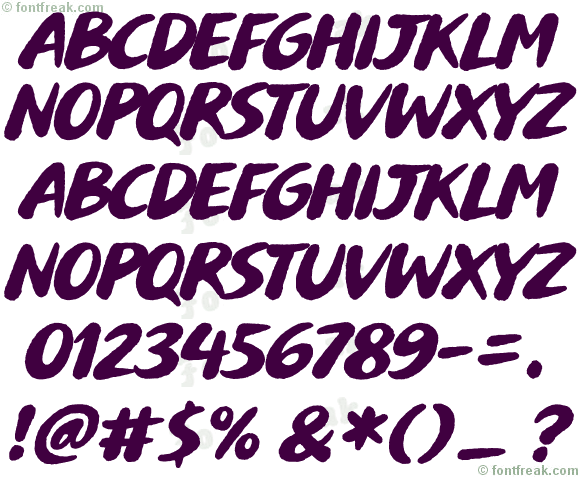
Buvard
About Buvard
Buvard is a captivating display font designed by Youssef Habchi, showcasing a unique blend of artistic flair and versatility. As a script font, it embodies a handwritten quality that is both playful and sophisticated. The strokes are bold and expressive, with a variable weight that adds a dynamic feel to each letter. The slightly uneven baseline and organic forms give Buvard a lively character, making it stand out in various design contexts. The spacing is generous, allowing for easy readability while maintaining an elegant flow.
This font is particularly well-suited for a range of creative applications. It shines in wedding invitations, where its whimsical nature can add a personal touch to the big day. Buvard also works beautifully for restaurant menus, infusing a sense of warmth and approachability that invites customers in. Additionally, it is an excellent choice for movie posters, where its dramatic flair can capture attention and convey emotion. Content creators will find it ideal for social media graphics, giving their posts a distinctive and engaging look.
What sets Buvard apart is its ability to balance artistic expression with functionality. The font captures the essence of handwritten style while remaining versatile enough for both formal and casual contexts. For those seeking to enhance their projects, the Buvard font free download offers an opportunity to incorporate this unique typeface into their design repertoire, ensuring a memorable impact.